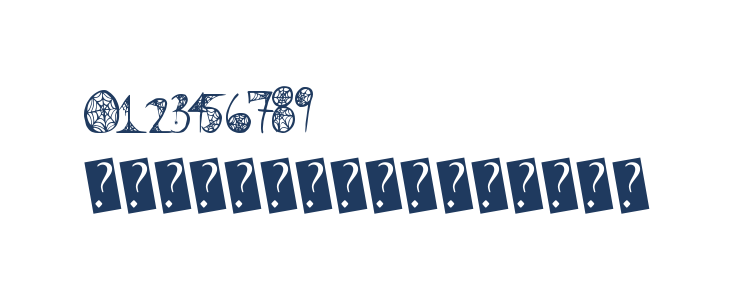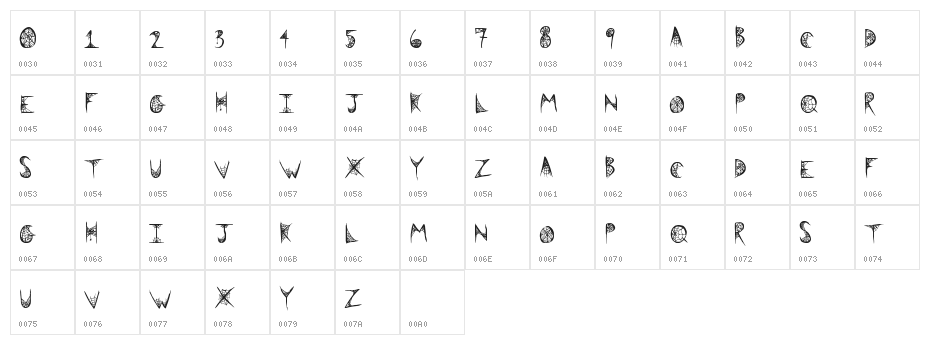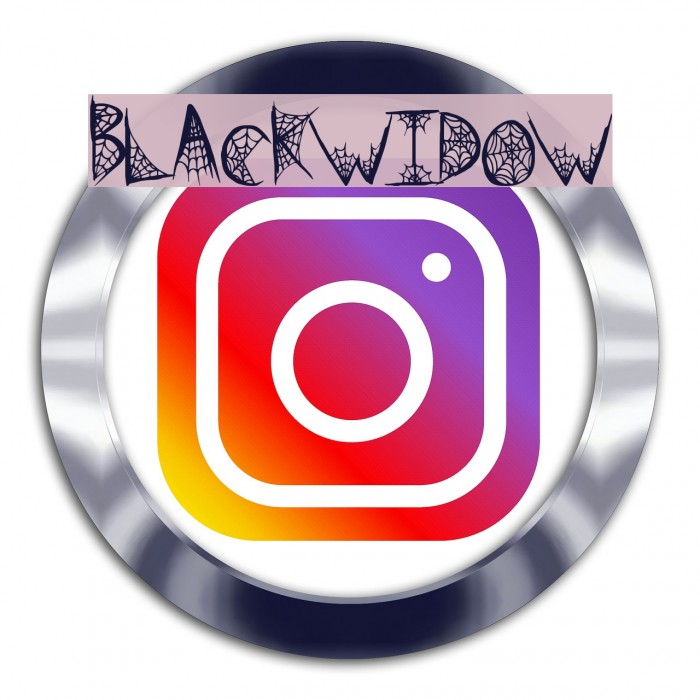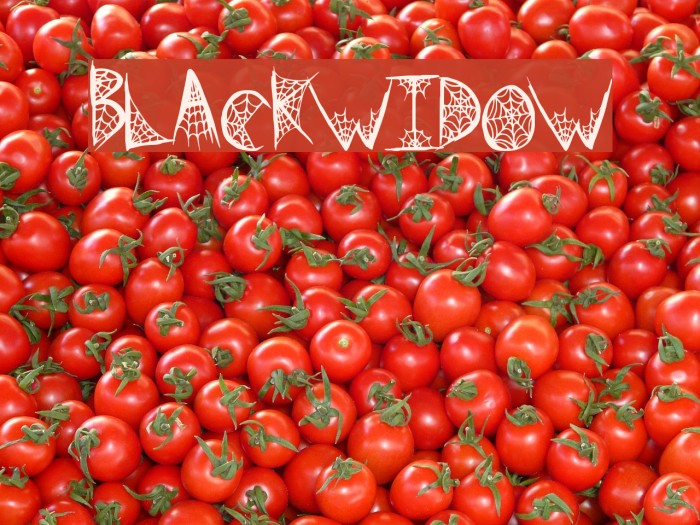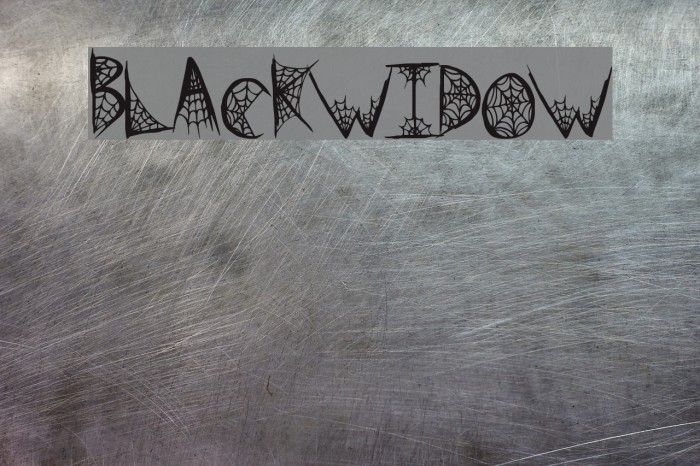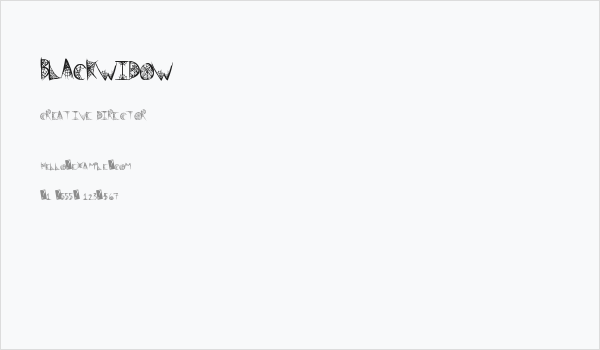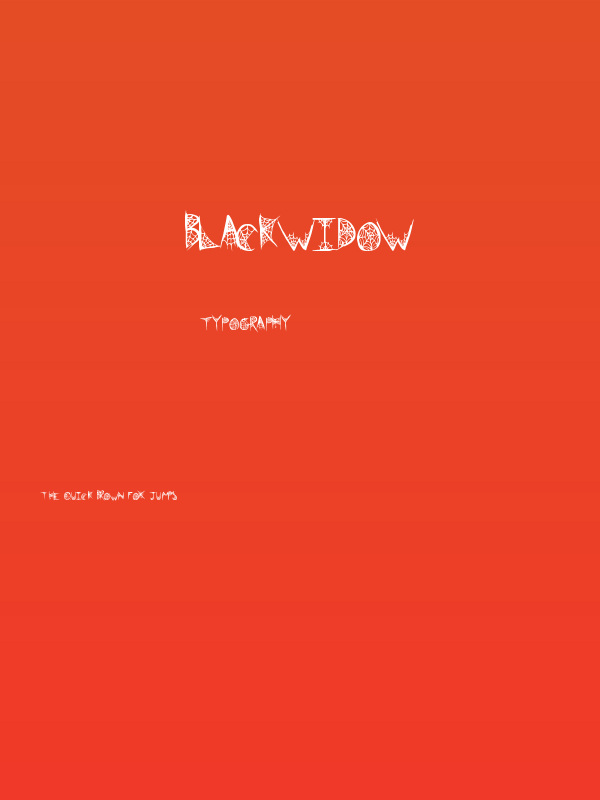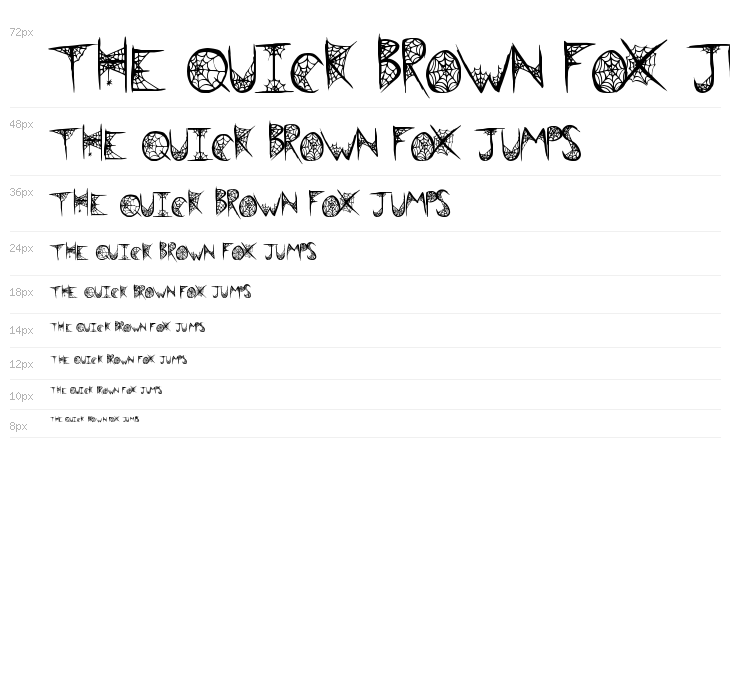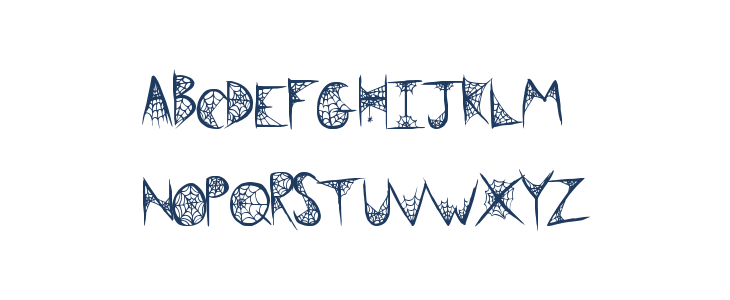
BlackWidow Font
This font features a unique and intricate design inspired by spider webs, creating a spooky and mysterious aesthetic. Each character is adorned with web-like patterns, giving it a decorative and thematic appearance. The uppercase and lowercase letters maintain a consistent style, with sharp, angular lines and detailed web motifs. The numbers and special characters also follow this theme, ensuring a cohesive look across all elements. This font is perfect for Halloween-themed projects or any design requiring a touch of eerie elegance.